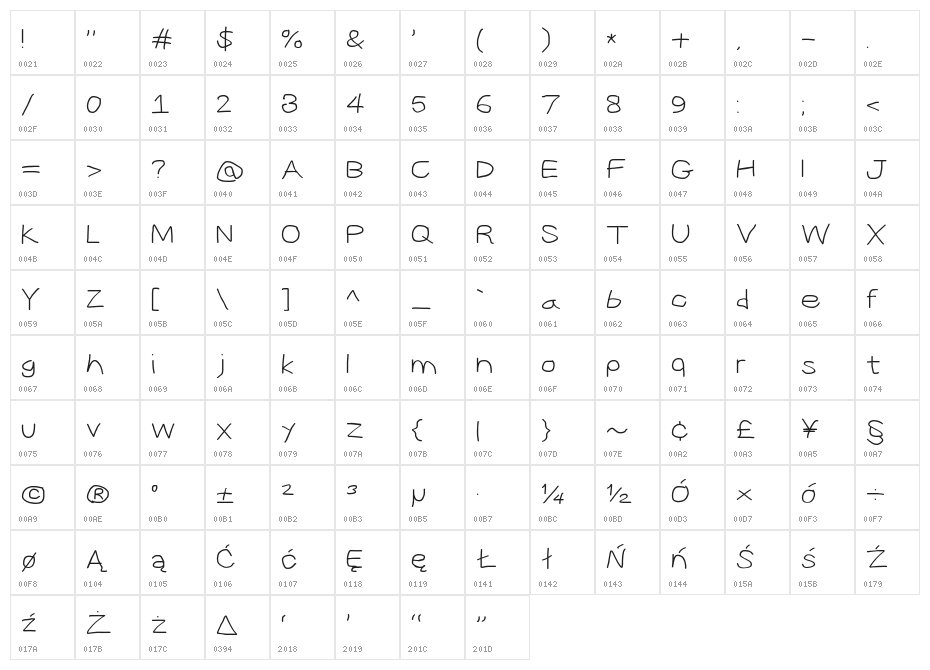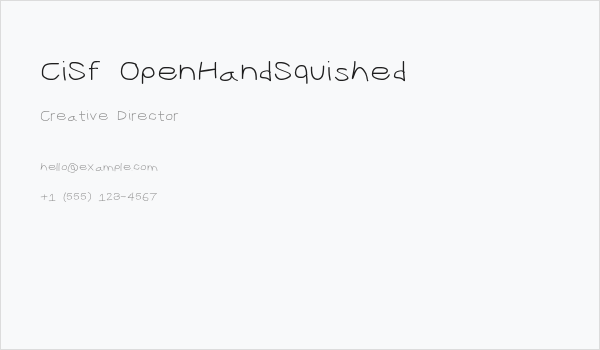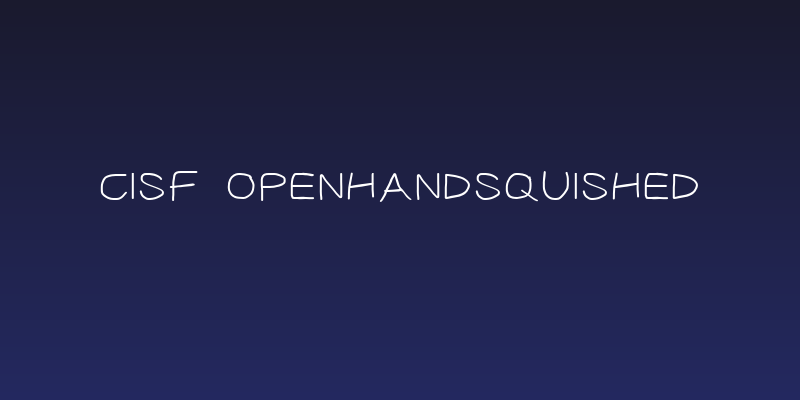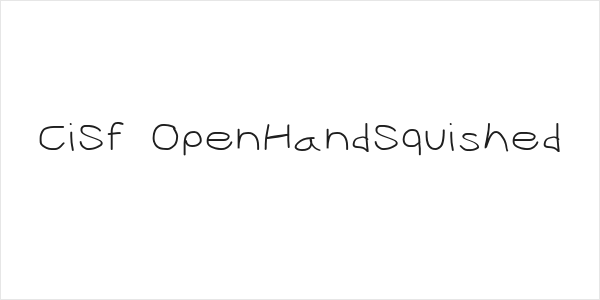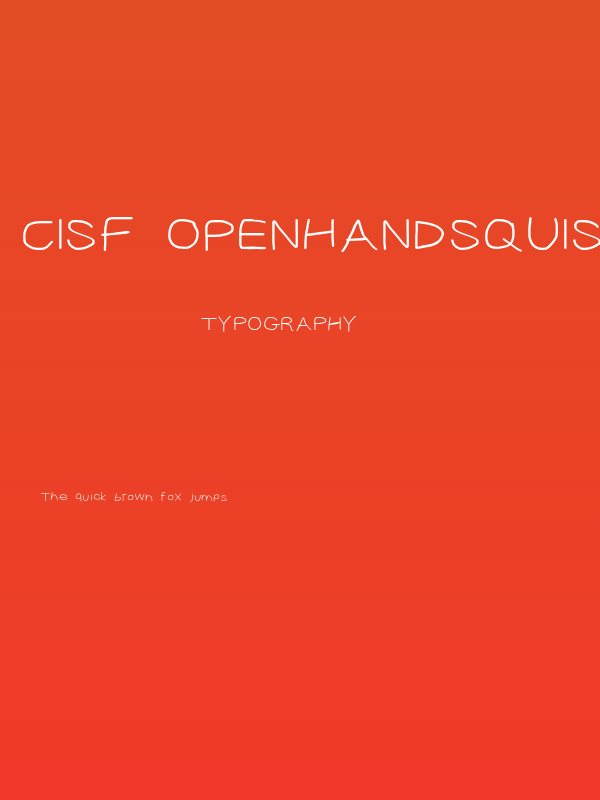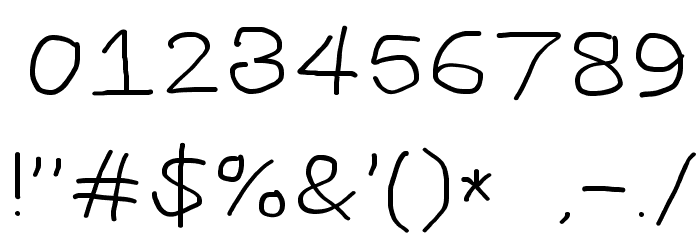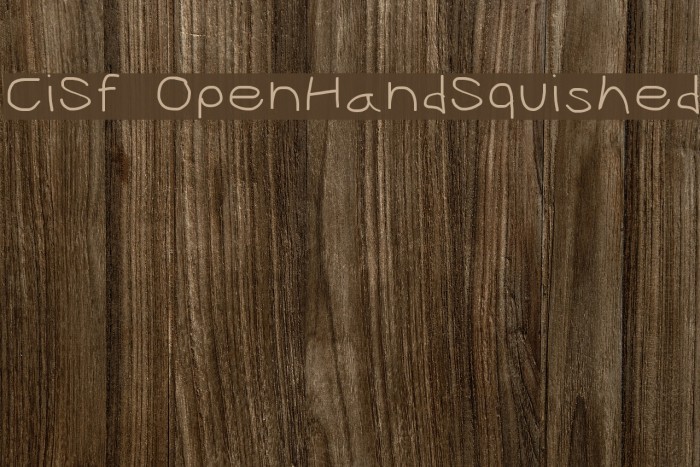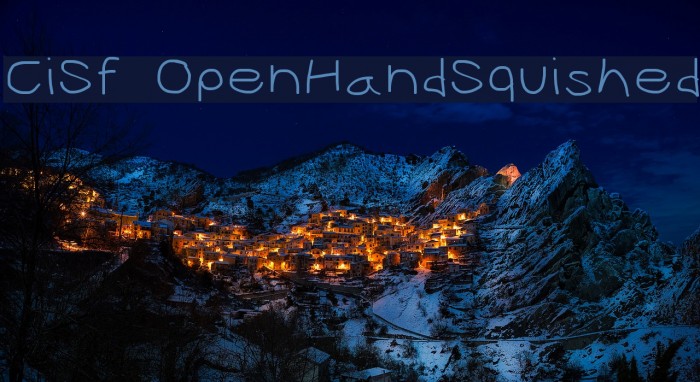
CiSf OpenHandSquished Font
CiSf OpenHandSquished Description
This font features a playful, handwritten style with a casual and informal appearance. The characters are slightly irregular, giving it a whimsical and approachable feel. The strokes are consistent in thickness, contributing to a uniform look across all characters. The uppercase and lowercase letters maintain a cohesive style, with rounded edges and a slight tilt that adds to the font's charm. Numbers and special characters are designed to match the overall aesthetic, ensuring a harmonious look when used together. This font is perfect for projects that require a friendly and inviting tone.
| Use Case | Headlines, Logos, Informal text |
| Proposed Projects | Ideal for children's books, greeting cards, casual invitations, and playful branding. |